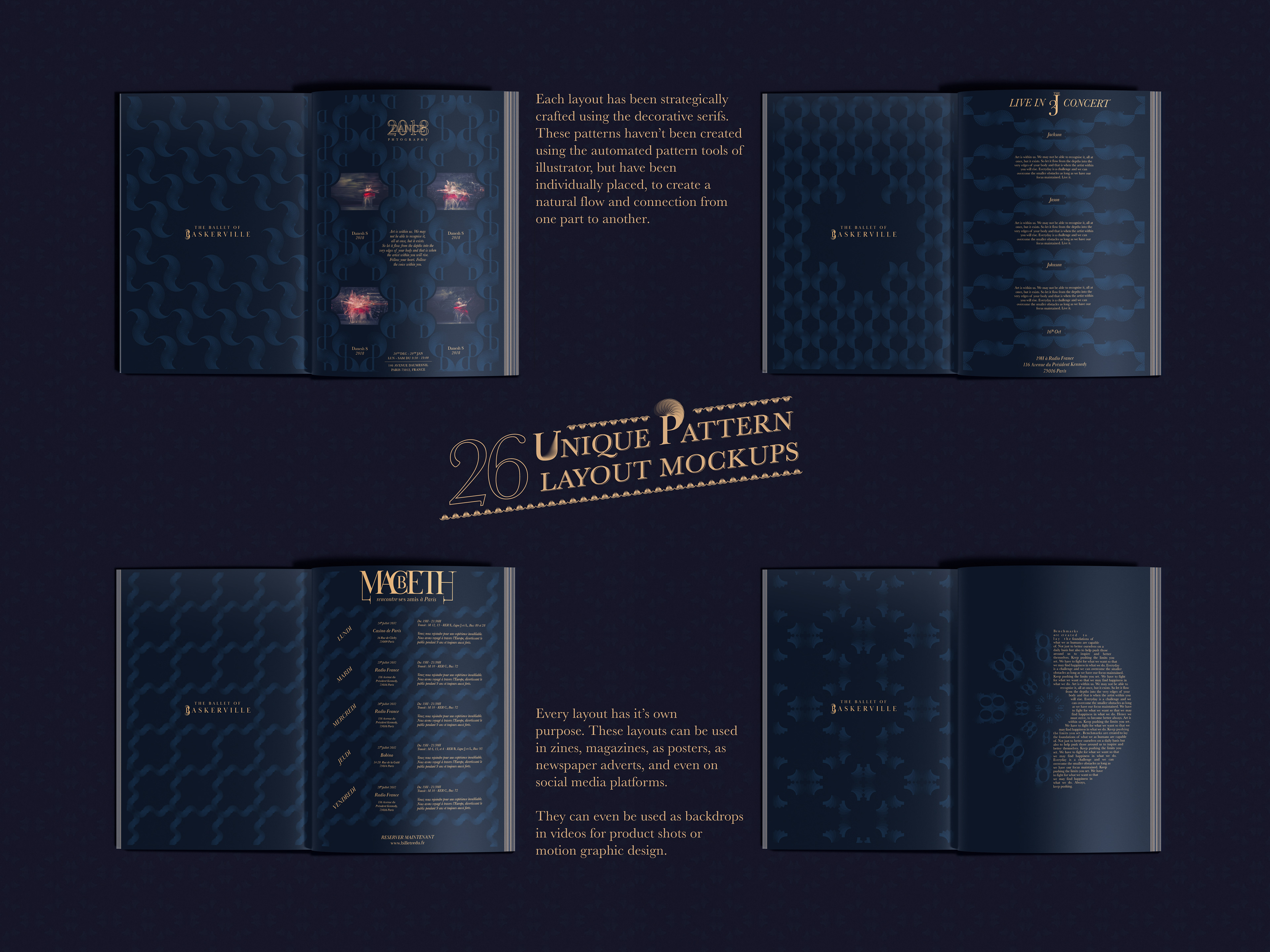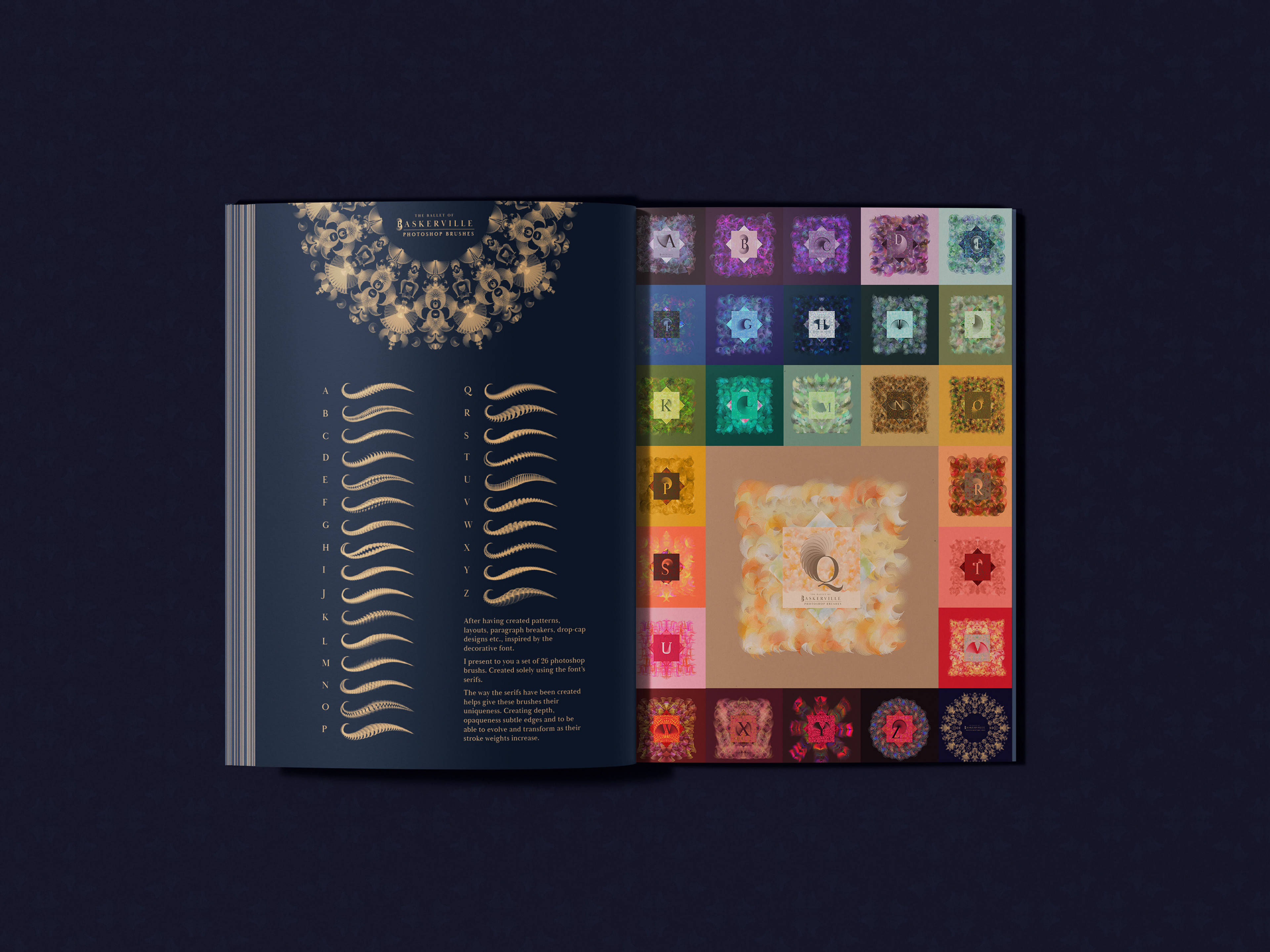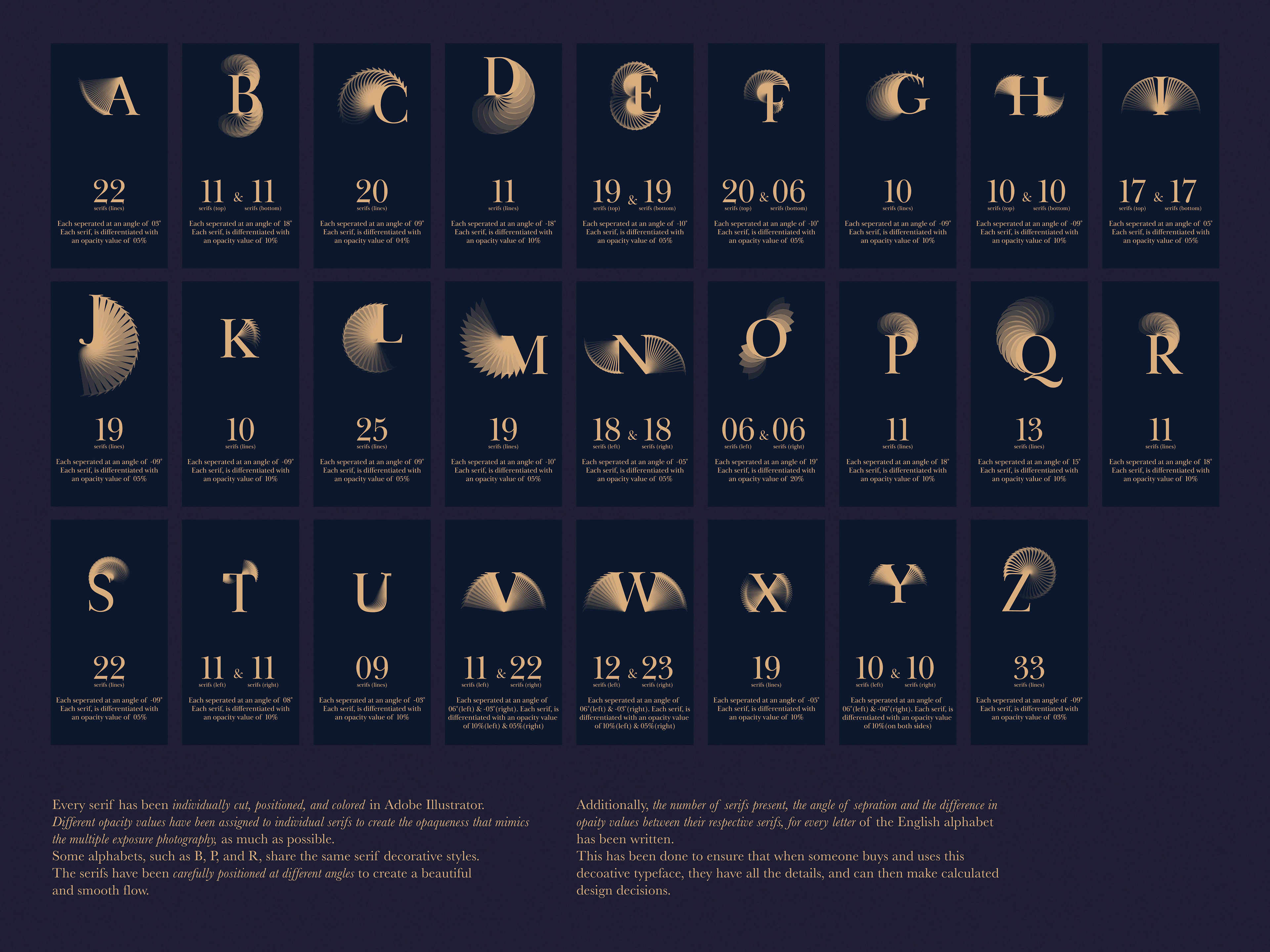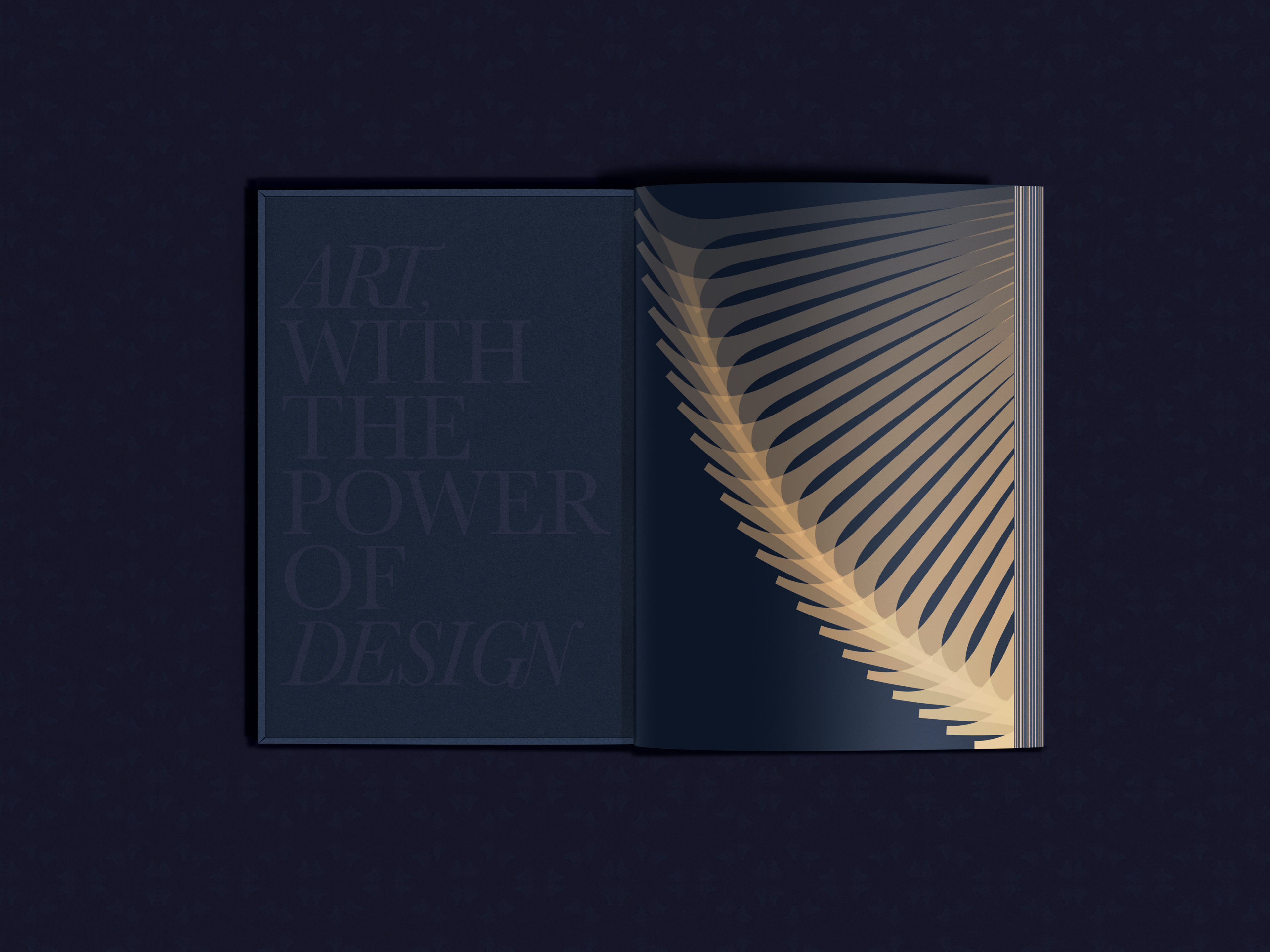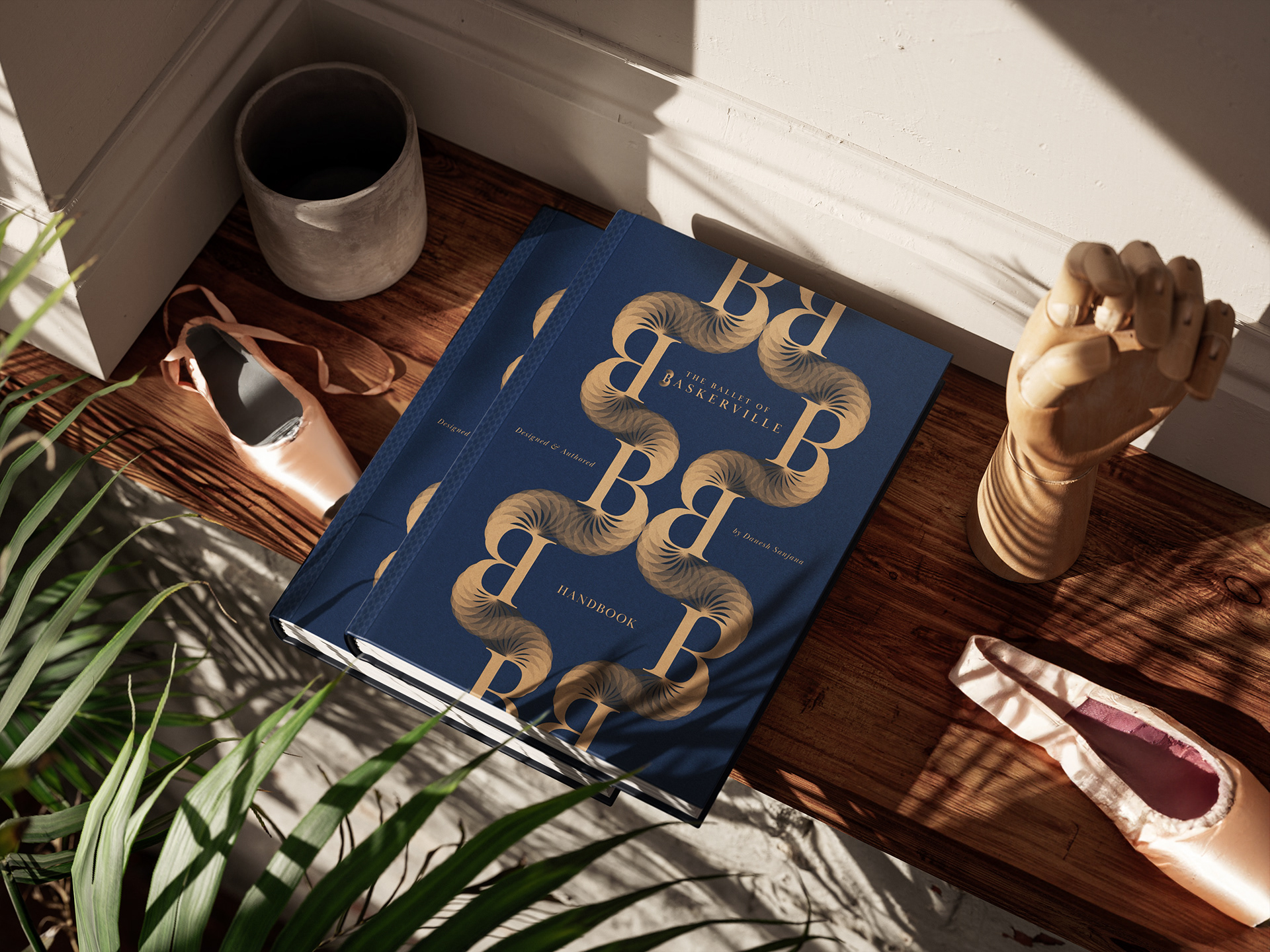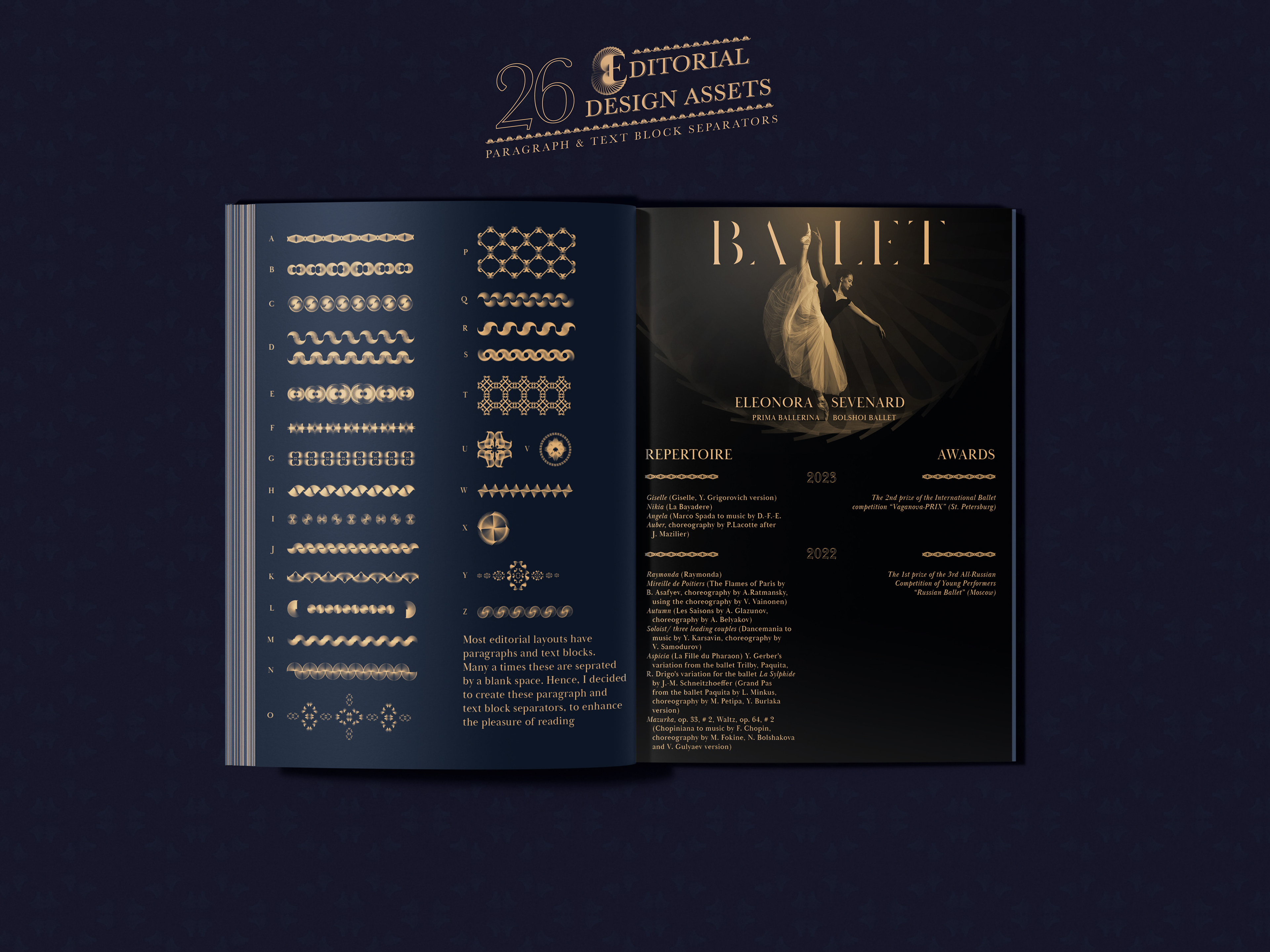
Imagine this... You are about to enter the world of 26 letters that have sprouted hands and legs because they wanted to dance a ballet of their own. These letters have been brought to life, by using Baskerville as the base font. You might, or might- not have seen fonts behave in such a way before but what can be guaranteed is that you will be WOWED!
This is a decorative vector font that can be used in countless shapes, forms, colors, or sizes. The possibilities are endless.